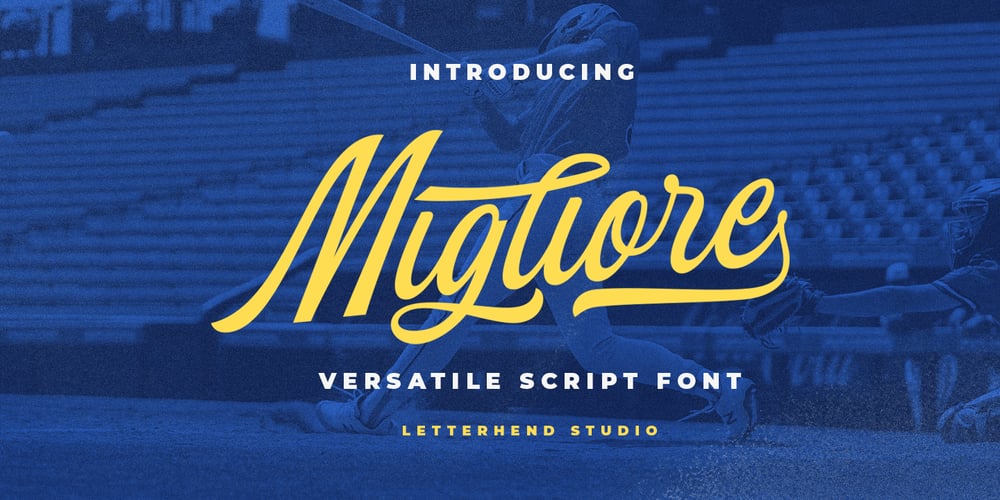
Migliore Font Family was designed by Hendry Juanda and published by Letterhend. Migliore contains 1 styles and family package options. Migliore is a versatile and classy script. This font perfectly made to be applied especially in logo, and the other various formal forms such as invitations, labels, logos, magazines, books, greeting / wedding cards, packaging, fashion, make up, stationery, novels, labels or any type of advertising purpose.Features : uppercase & lowercase numbers and punctuation multilingual ligatures alternates swashes PUA encoded We highly recommend using a program that supports OpenType features and Glyphs panels like many of Adobe apps and Corel Draw, so you can see and access all Glyph variations.